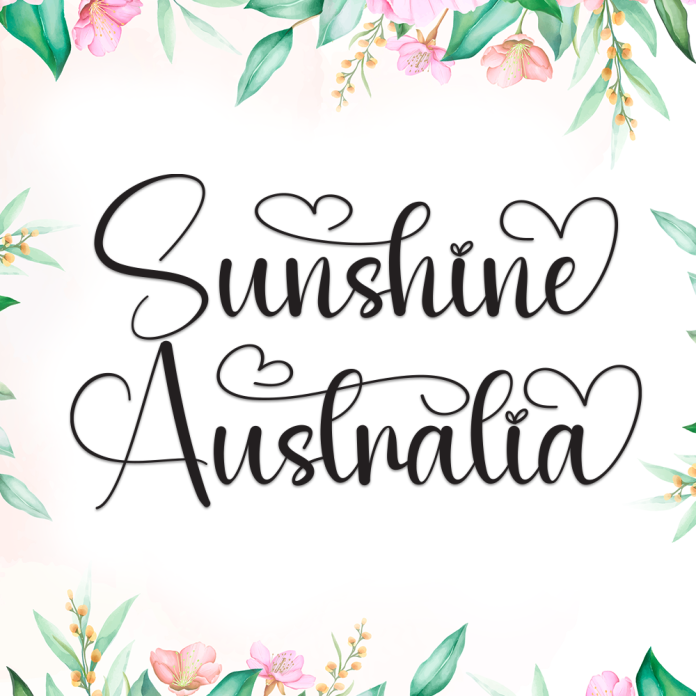
Sunshine Australia is a breezy and charming handwritten font inspired by the warmth of the sun and the laid-back spirit of the coast. With flowing strokes and a natural feel, this font is perfect for travel blogs, nature quotes, product packaging, summer-themed designs, and personal branding.
Its handwritten style brings a lighthearted and authentic vibe to any project that wants to feel friendly and joyful.
Uppercase & Lowercase Letters
Casual Handwriting Style
Smooth and Flowing Lines
Numbers & Punctuation
Multilingual Support
Capture the sunshine in your design with the warm and vibrant personality of Sunshine Australia.